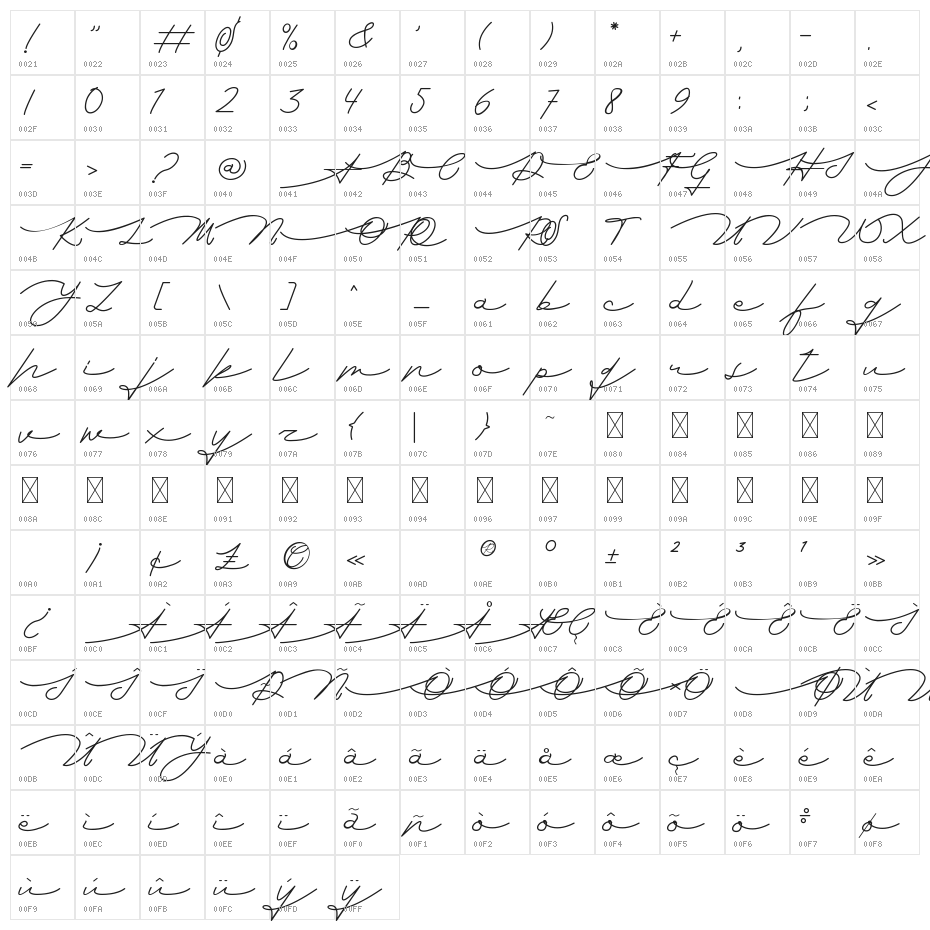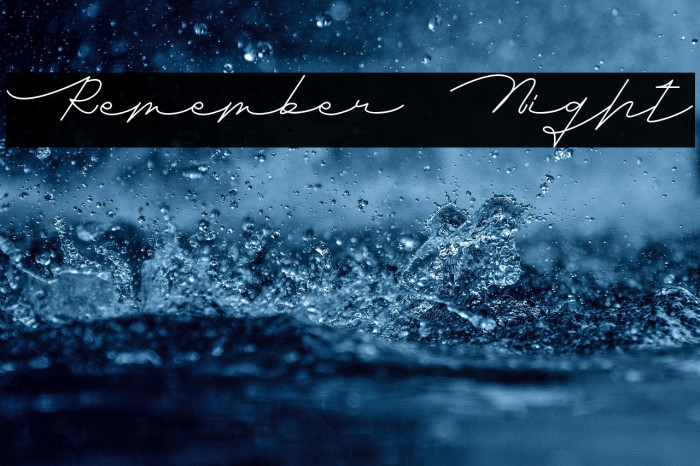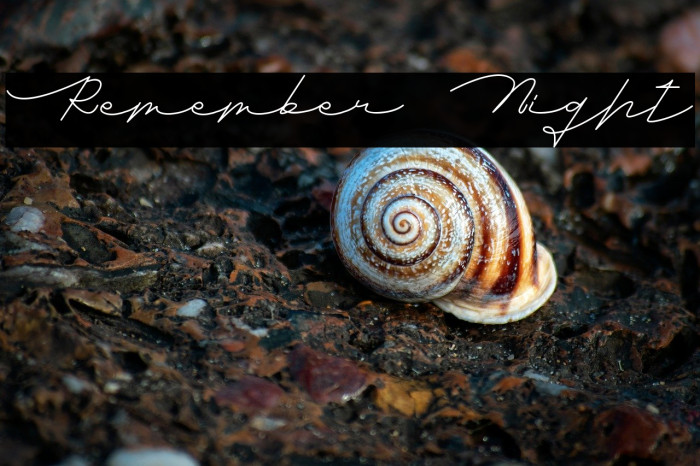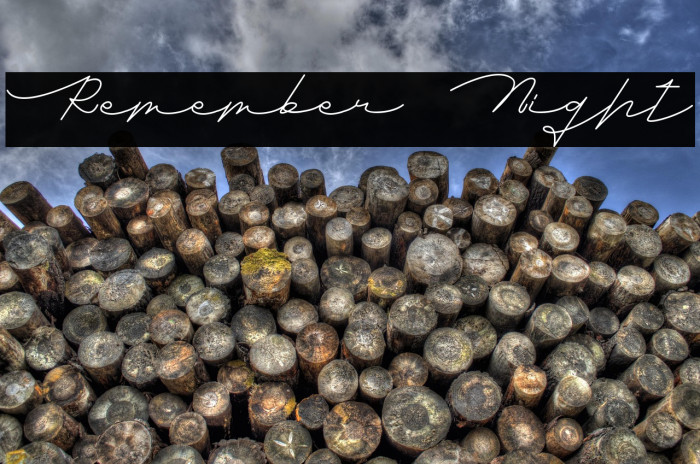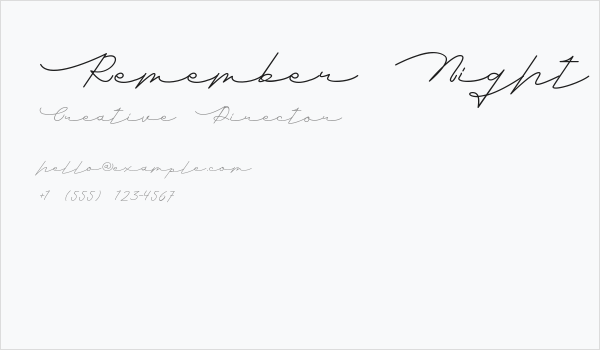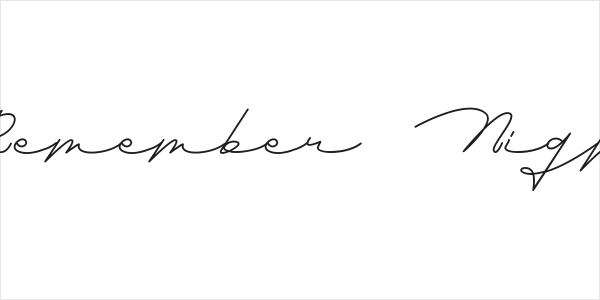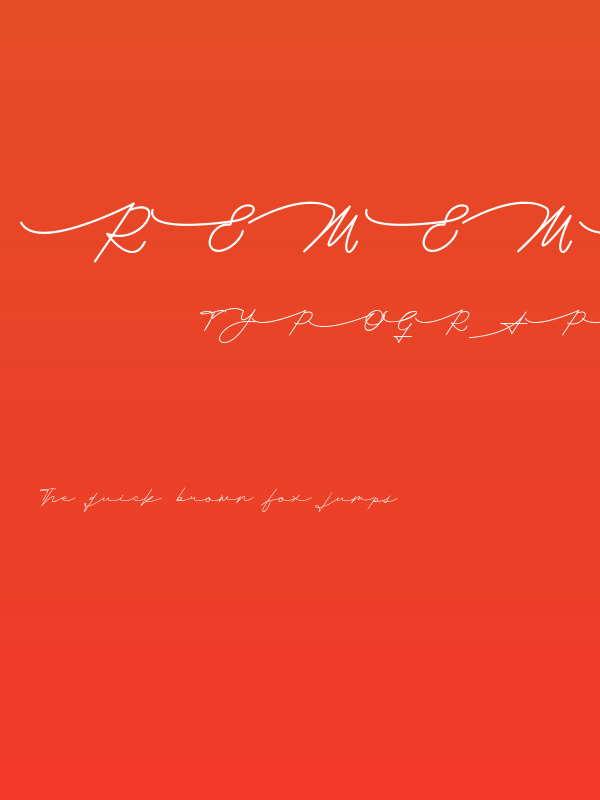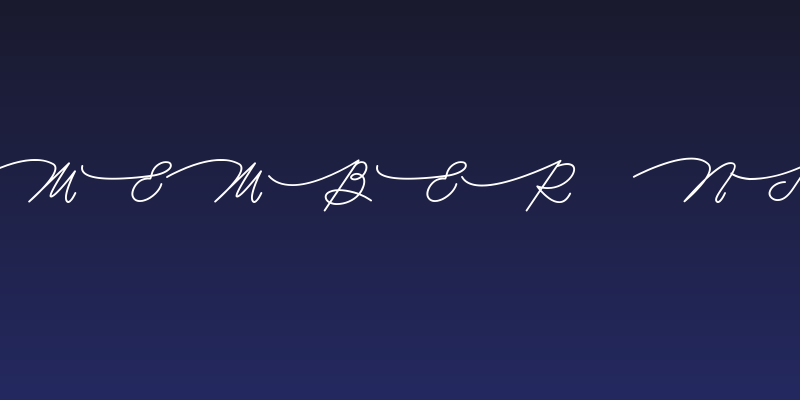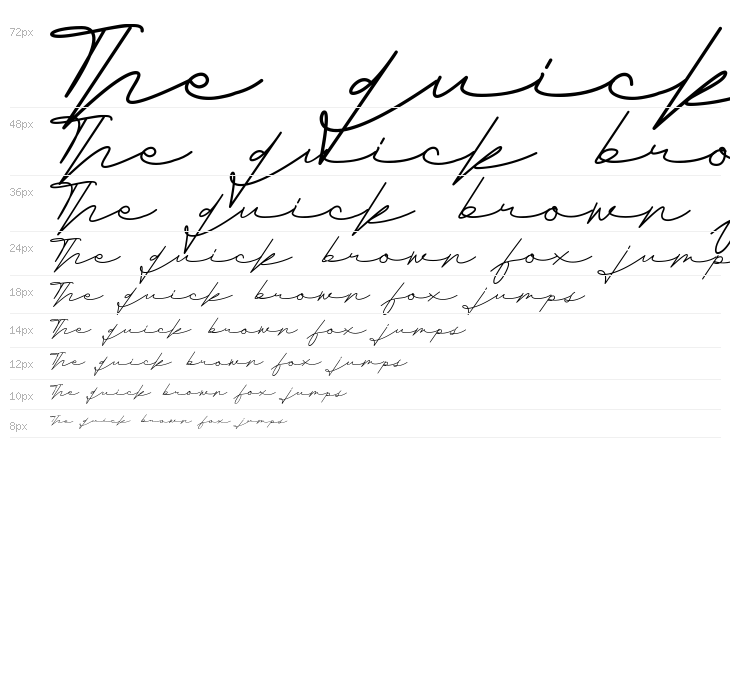
Remember Night Font
Remember Night Description
This font features a delicate and flowing script style that mimics elegant handwriting. The characters are connected with smooth, continuous strokes, giving it a fluid and graceful appearance. The uppercase letters are slightly more ornate, with extended loops and swirls, while the lowercase letters maintain a consistent, cursive style. The numerals are clear and legible, complementing the overall aesthetic. Special characters are integrated seamlessly, maintaining the font's cohesive look. This font is perfect for projects that require a personal touch, such as invitations, greeting cards, or branding materials that aim to convey elegance and sophistication.
| Use Case | Headlines, Invitations, Personal Branding |
| Proposed Projects | Ideal for wedding invitations, personal branding, elegant stationery, and greeting cards. |